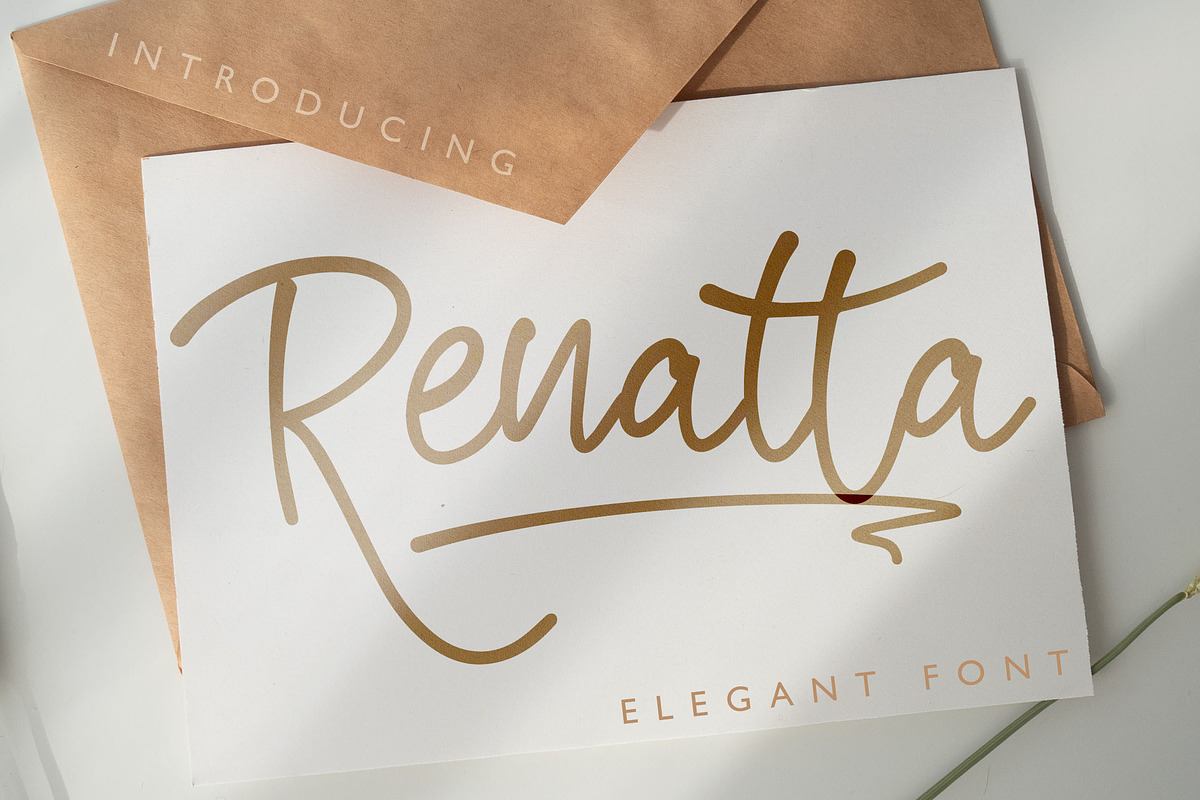
Renatta – Elegant Script Font Free Download is a graceful and flowing handwritten typeface that exudes romance and refinement. Perfect for wedding invitations, upscale branding, personal signatures, and luxury packaging, this font adds a delicate and sophisticated touch to any design.
With stylish curves and smooth transitions, Renatta – Elegant Script Font Free Download captures the elegance of modern calligraphy. Whether you're designing for a boutique brand or crafting heartfelt stationery, Renatta delivers timeless beauty and professionalism. Use it to elevate your mockups and get a feel for its charm—then upgrade to a commercial license when you're ready to release your project into the world.